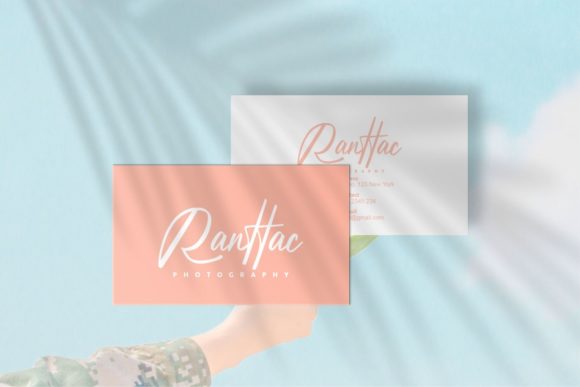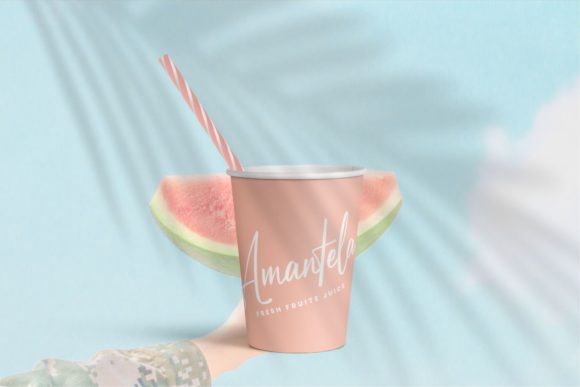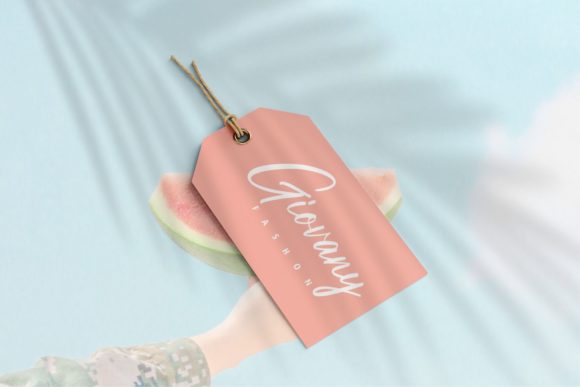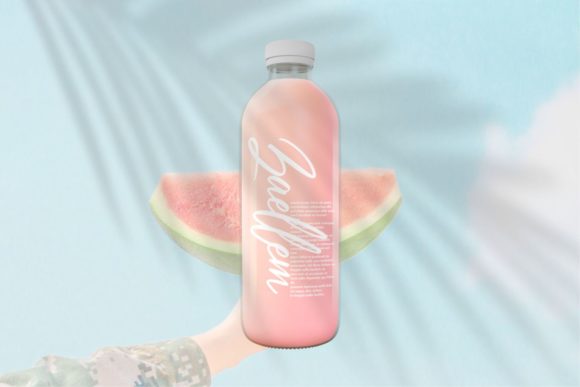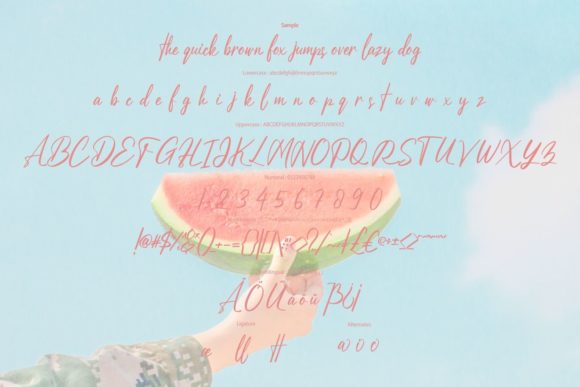
Bellina Font: The Elegant and Charming Choice for Designers and Crafters
Bellina font is a beautiful, handwritten typeface that exudes elegance and charm. Its delicate strokes and refined appearance make it an ideal choice for designers and crafters looking to add a touch of sophistication to their projects. Whether you’re working on wedding invitations, thank you cards, quotes, greeting cards, logos, business cards, or any other design that requires a handwritten touch, Bellina font is sure to impress.
The Characteristics of Bellina Font
Bellina font is characterized by its flowing, cursive script and delicate letterforms. The font features subtle variations in line width and a gentle, handwritten feel that gives it a warm and inviting appearance. The letters are carefully crafted to create a sense of movement and fluidity, making Bellina font perfect for designs that require a touch of elegance and sophistication.
Uses of Bellina Font
Bellina font is a versatile typeface that can be used in a variety of design projects, including:
- Wedding Invitations: Bellina font is a popular choice for wedding invitations, as it adds a touch of romance and elegance to the design.
- Thank You Cards: The font’s delicate appearance makes it perfect for thank you cards, where you want to express your gratitude in a heartfelt and sincere way.
- Quotes: Bellina font is ideal for quotes, as it adds a touch of sophistication and elegance to the text.
- Greeting Cards: The font’s warm and inviting appearance makes it perfect for greeting cards, where you want to convey a sense of friendship and affection.
- Logos: Bellina font can be used to create beautiful and elegant logos that reflect the values and personality of your brand.
- Business Cards: The font’s professional appearance makes it a great choice for business cards, where you want to make a good impression on potential clients.
Why Designers and Crafters Love Bellina Font
Designers and crafters love Bellina font for several reasons:
- Elegance: Bellina font adds a touch of elegance and sophistication to any design project.
- Versatility: The font can be used in a variety of design projects, from wedding invitations to business cards.
- Easy to Read: Bellina font is easy to read, even in small sizes, making it perfect for designs where you need to convey a lot of information.
- Unique: The font’s unique appearance sets it apart from other typefaces, making it a great choice for designers who want to create something truly special.
Tips for Using Bellina Font
Here are some tips for using Bellina font in your design projects:
- Use it sparingly: Bellina font is best used sparingly, as it can be overwhelming if used too much.
- Pair it with other fonts: Bellina font pairs well with other fonts, such as serif and sans-serif fonts.
- Experiment with colors: Bellina font looks great in a variety of colors, from soft pastels to rich jewel tones.
- Pay attention to spacing: Make sure to pay attention to the spacing between letters and words, as Bellina font can be a bit delicate.
Bellina font is a beautiful and elegant typeface that is perfect for designers and crafters looking to add a touch of sophistication to their projects. Its delicate appearance, versatility, and ease of use make it a popular choice for a variety of design projects, from wedding invitations to business cards. Whether you’re a seasoned designer or a crafty DIY enthusiast, Bellina font is sure to inspire your creativity and help you create something truly special.